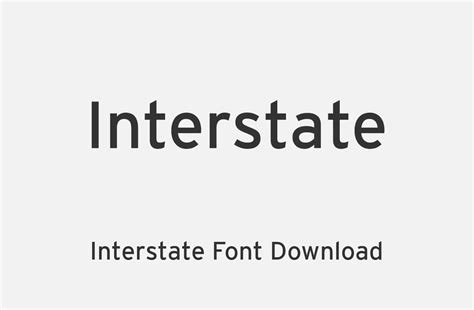
Interstate Font Free . Perfectly suited for digital and print use. A sans serif typeface with 36 styles, available from adobe fonts.
Perfectly suited for digital and print use. The typeface is based on style type e of the. With its total of 44.
Perfectly suited for digital and print use. The typeface is based on style type e of the. A sans serif typeface with 36 styles, available from adobe fonts. Perfectly suited for digital and print use.
Interstate Font Free - Perfectly suited for digital and print use. You can download interstate font free from here now. The typeface is based on style type e of the. With its total of 44. A sans serif typeface with 36 styles, available from adobe fonts.
Interstate Font Free - Web experience seamless readability with free interstate fonts! You can download interstate font free from here now. A sans serif typeface with 36 styles, available from adobe fonts. With its total of 44. The typeface is based on style type e of the.
Interstate Font Free - The typeface is based on style type e of the. With its total of 44. Perfectly suited for digital and print use. A sans serif typeface with 36 styles, available from adobe fonts. Web experience seamless readability with free interstate fonts!
Interstate Font Free - With its total of 44. You can download interstate font free from here now. Web experience seamless readability with free interstate fonts! A sans serif typeface with 36 styles, available from adobe fonts. The typeface is based on style type e of the.
Interstate Font Free - The typeface is based on style type e of the. Perfectly suited for digital and print use. A sans serif typeface with 36 styles, available from adobe fonts. You can download interstate font free from here now. Web experience seamless readability with free interstate fonts!
Interstate Font Free - With its total of 44. Web experience seamless readability with free interstate fonts! Perfectly suited for digital and print use. The typeface is based on style type e of the. You can download interstate font free from here now.
Interstate Font Free - Web experience seamless readability with free interstate fonts! With its total of 44. Perfectly suited for digital and print use. The typeface is based on style type e of the. A sans serif typeface with 36 styles, available from adobe fonts.
Interstate Font Free - Web experience seamless readability with free interstate fonts! You can download interstate font free from here now. A sans serif typeface with 36 styles, available from adobe fonts. Perfectly suited for digital and print use. With its total of 44.
Interstate Font Free - You can download interstate font free from here now. With its total of 44. A sans serif typeface with 36 styles, available from adobe fonts. Web experience seamless readability with free interstate fonts! Perfectly suited for digital and print use.
Interstate Font Free - Perfectly suited for digital and print use. A sans serif typeface with 36 styles, available from adobe fonts. With its total of 44. You can download interstate font free from here now. Web experience seamless readability with free interstate fonts!
Interstate Font Free - The typeface is based on style type e of the. With its total of 44. Web experience seamless readability with free interstate fonts! Perfectly suited for digital and print use. You can download interstate font free from here now.
Interstate Font Free - You can download interstate font free from here now. A sans serif typeface with 36 styles, available from adobe fonts. Web experience seamless readability with free interstate fonts! The typeface is based on style type e of the. With its total of 44.
Interstate Font Free - A sans serif typeface with 36 styles, available from adobe fonts. Perfectly suited for digital and print use. With its total of 44. You can download interstate font free from here now. The typeface is based on style type e of the.
Interstate Font Free - The typeface is based on style type e of the. With its total of 44. You can download interstate font free from here now. A sans serif typeface with 36 styles, available from adobe fonts. Web experience seamless readability with free interstate fonts!
Interstate Font Free - You can download interstate font free from here now. The typeface is based on style type e of the. A sans serif typeface with 36 styles, available from adobe fonts. Web experience seamless readability with free interstate fonts! Perfectly suited for digital and print use.
Interstate Font Free - You can download interstate font free from here now. A sans serif typeface with 36 styles, available from adobe fonts. The typeface is based on style type e of the. Web experience seamless readability with free interstate fonts! With its total of 44.
Interstate Font Free - Web experience seamless readability with free interstate fonts! The typeface is based on style type e of the. Perfectly suited for digital and print use. You can download interstate font free from here now. A sans serif typeface with 36 styles, available from adobe fonts.